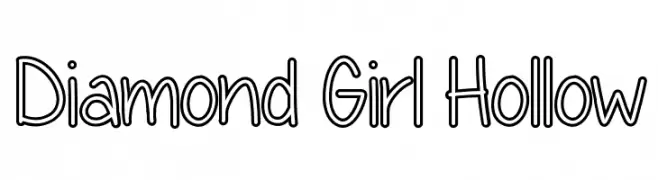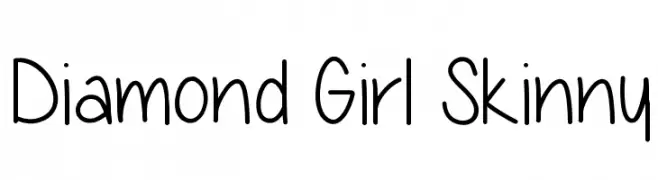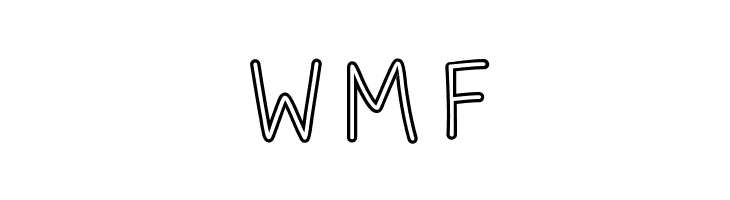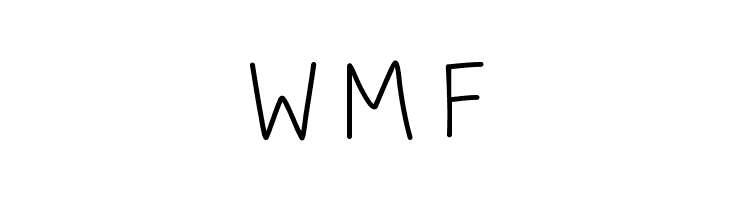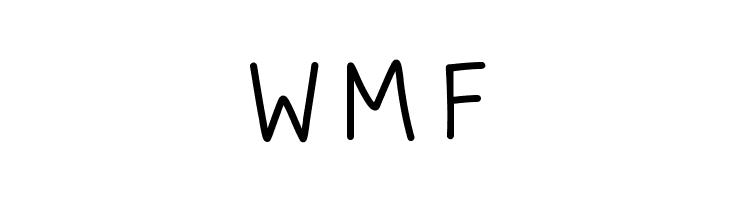
( Fonts by Des Gomez )
A playful, handwritten font with a whimsical and friendly style.
( Ouripedes Gallene )
A bold, decorative icon set with diverse abstract and pictorial symbols.
A playful, hand-drawn collection of bold and whimsical symbols.
( Fonts by Ditya Ananto )
A bold, decorative font with geometric patterns and angular lines.
( Fonts by Shelley Evans )
A playful font with letters embedded in playing cards, featuring card suits for a game-themed design.